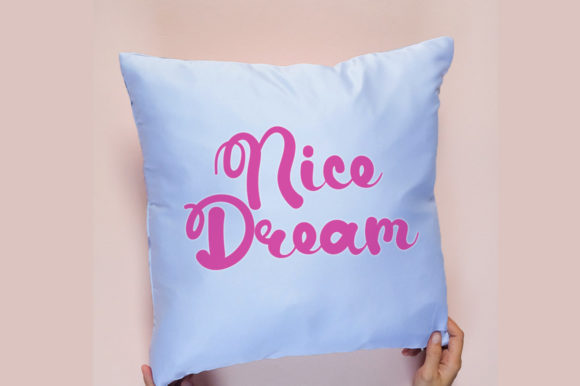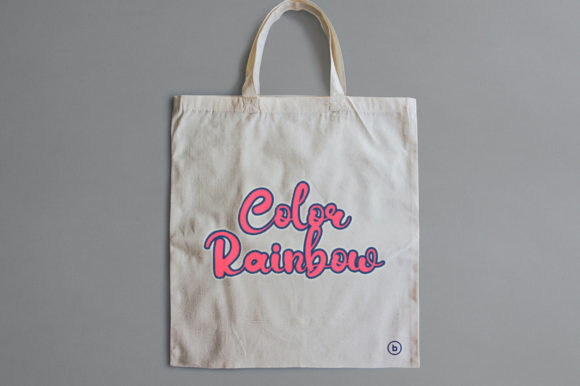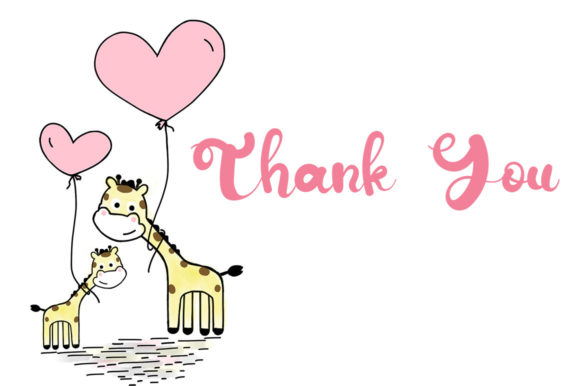
Best Unicorn Font
About Best Unicorn Font
Best Unicorn is a beautiful and sweet font that radiates freshness, cleanliness, and elegance. With its delightful charm, this font is versatile enough to enhance a wide array of projects, seamlessly fitting into both formal and informal settings. Best Unicorn promises to infuse an incredibly joyful touch into your designs, making them stand out with a unique and delightful aesthetic.
The beauty and sweetness of Best Unicorn make it a standout choice for various design applications. Whether used in formal documents, invitations, branding materials, or creative projects, the font adds a touch of elegance and joy. Its versatility allows it to adapt to different contexts, making it a reliable option for designers looking to achieve a fresh and clean look in their work.
Best Unicorn’s ability to look amazing in a great variety of projects speaks to its adaptability. Its clean and elegant design ensures that it can seamlessly integrate into diverse themes and styles, making it a go-to font for a range of creative endeavors.
In summary, Best Unicorn is more than just a font; it’s a beautiful and sweet design tool that brings freshness, cleanliness, and elegance to your projects. Its joyful touch adds a unique flair that can elevate both formal and informal designs. With Best Unicorn, your creations are adorned with a delightful and versatile aesthetic that captures the attention and admiration of your audience.